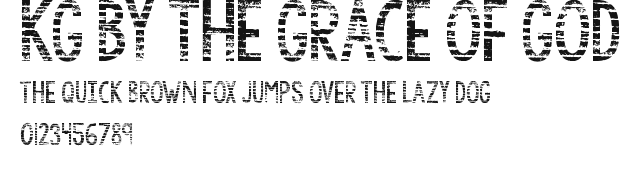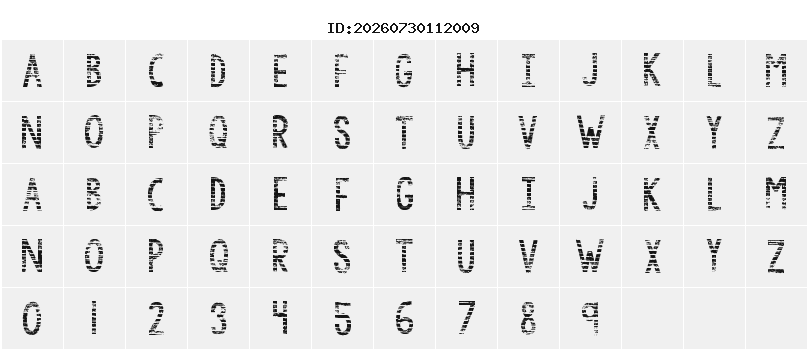
• Font Name: KG By the Grace of God
• Font ID: KimberlyGeswein: KG By the Grace of God: 2013
• Full Font Name: KG By the Grace of God
• Designer: Kimberly Geswein
• Manufacturer: Kimberly Geswein
About KG By the Grace of God.ttf
KG By the Grace of God.ttf is a modern, elegant sans-serif font designed for ultimate readability and visual harmony. Perfect for branding, headlines, web design, and print materials.